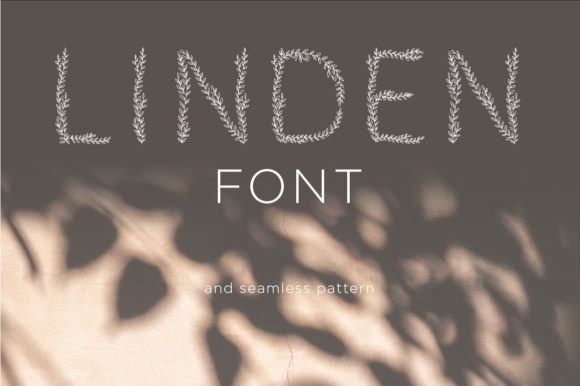
Step into a world of timeless elegance and artistic charm with Linden Font, the captivating decorative font that will transform your designs into masterpieces. Its gracefully intertwined lines and delicate flourishes add a touch of enchanting allure to every letter, making it the perfect choice for creating logos, branding, product packaging, and more.
With Linden Font, you'll have the power to elevate your designs to new heights. Its intricate details and harmonious flow command attention, leaving a lasting impression on your audience. Whether you're crafting heartfelt quotes for social media or designing eye-catching posters, Linden Font will bring your words to life with captivating beauty.
Take your creativity to the next level with Linden Font. Its versatility knows no bounds, allowing you to effortlessly create designs that resonate with your unique style. From logos that exude sophistication to product packaging that radiates charm, Linden Font is the perfect tool to bring your vision to life.
Don't settle for ordinary fonts that blend into the background. Choose Linden Font and embrace a world where elegance meets innovation. Let your designs bloom with creativity and captivate hearts with every stroke.